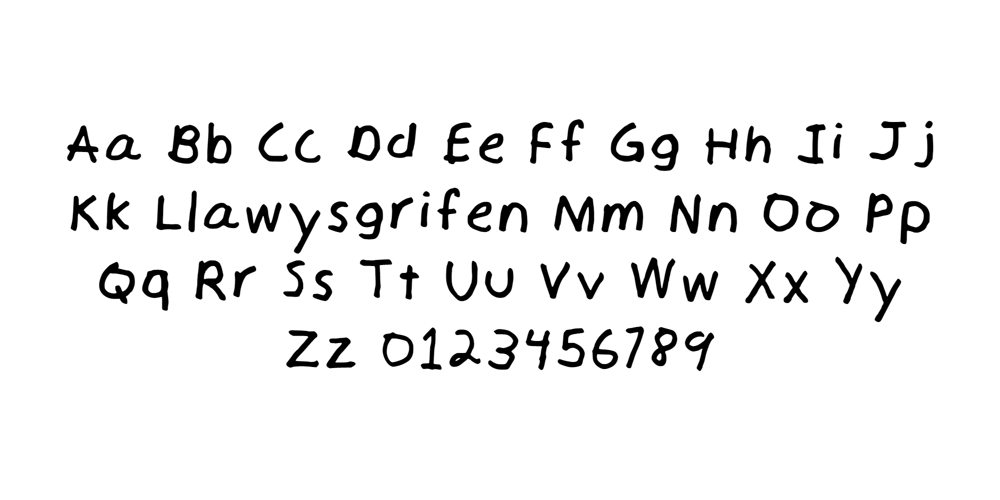
Llawysgrifen
Llawysgrifen font
Llawysgrifen Font Family was designed by Roland Hüse and published by Evermore Type. Llawysgrifen contains 1 styles and family package options. Llawysgrifen (Welsh for Handwritten) is a custom handwritten font created by Michael Kalber. It is unique from other script fonts because each character was created by hand, meaning no two characters are alike. This font is available in the Latin, Greek, and Cyrillic alphabet, with the Hebrew and some Arabic characters.